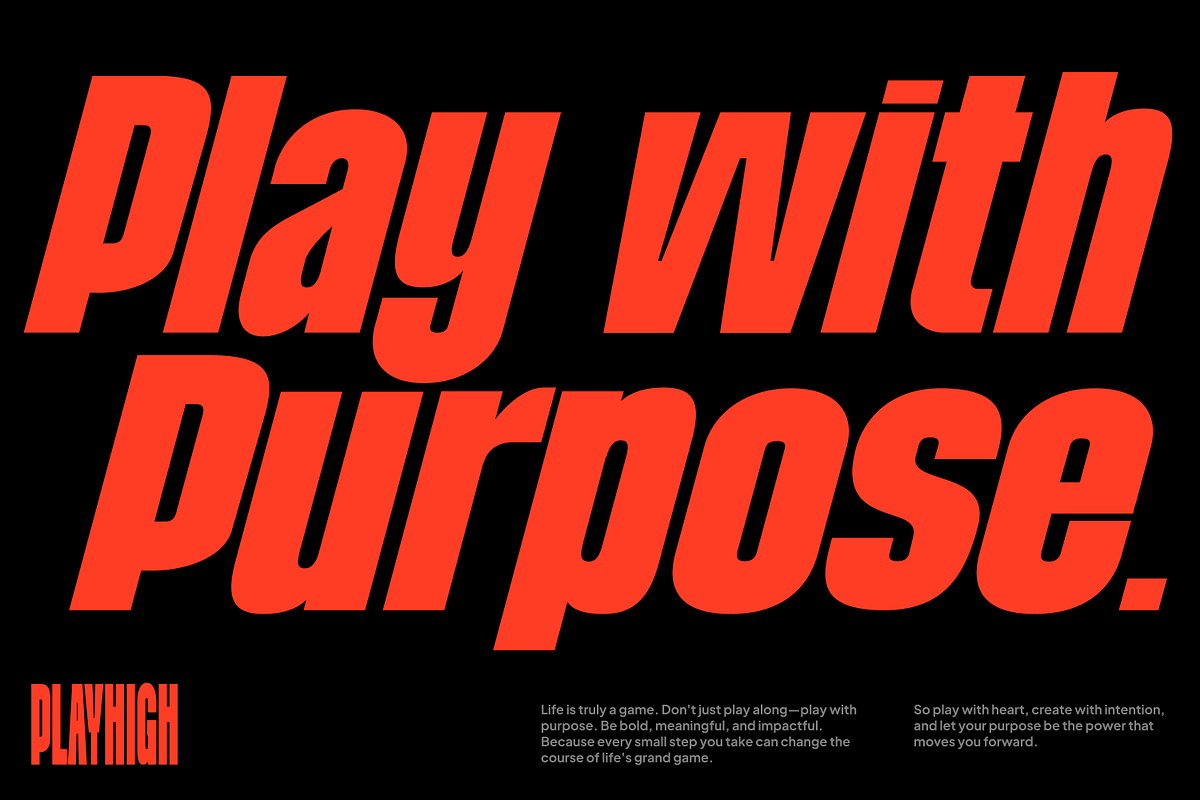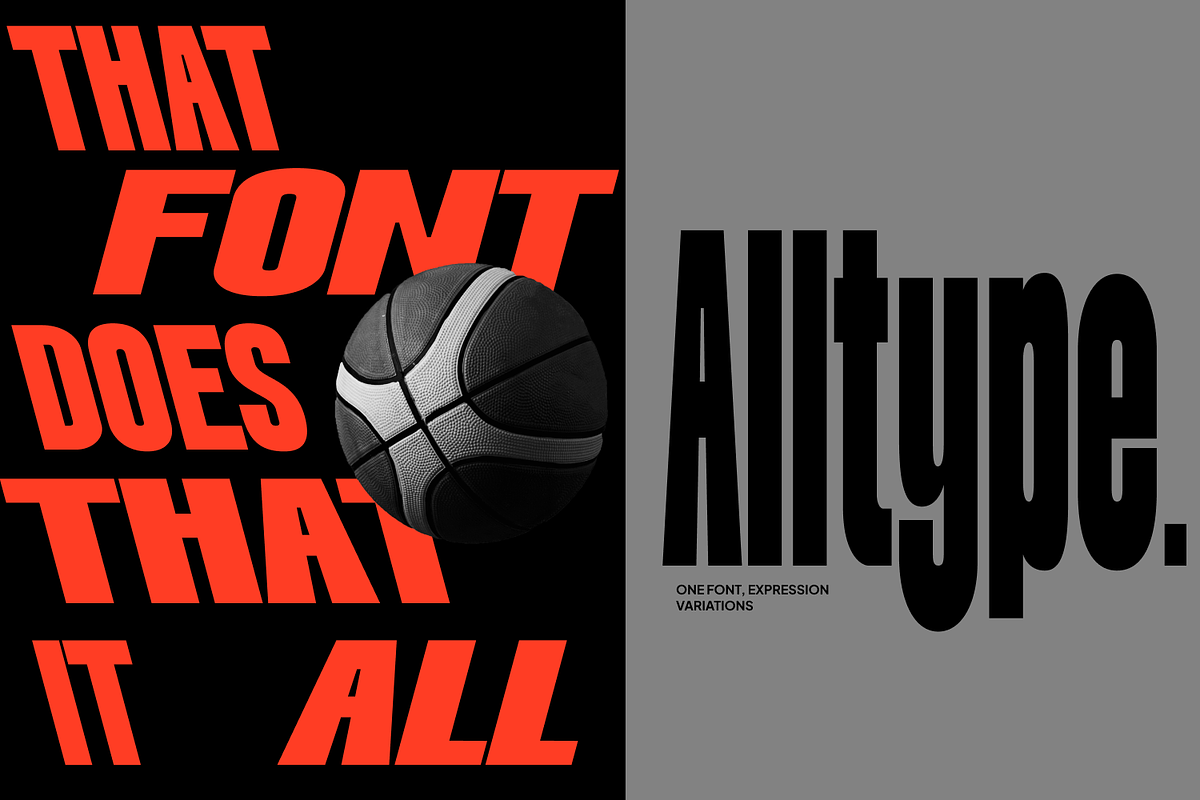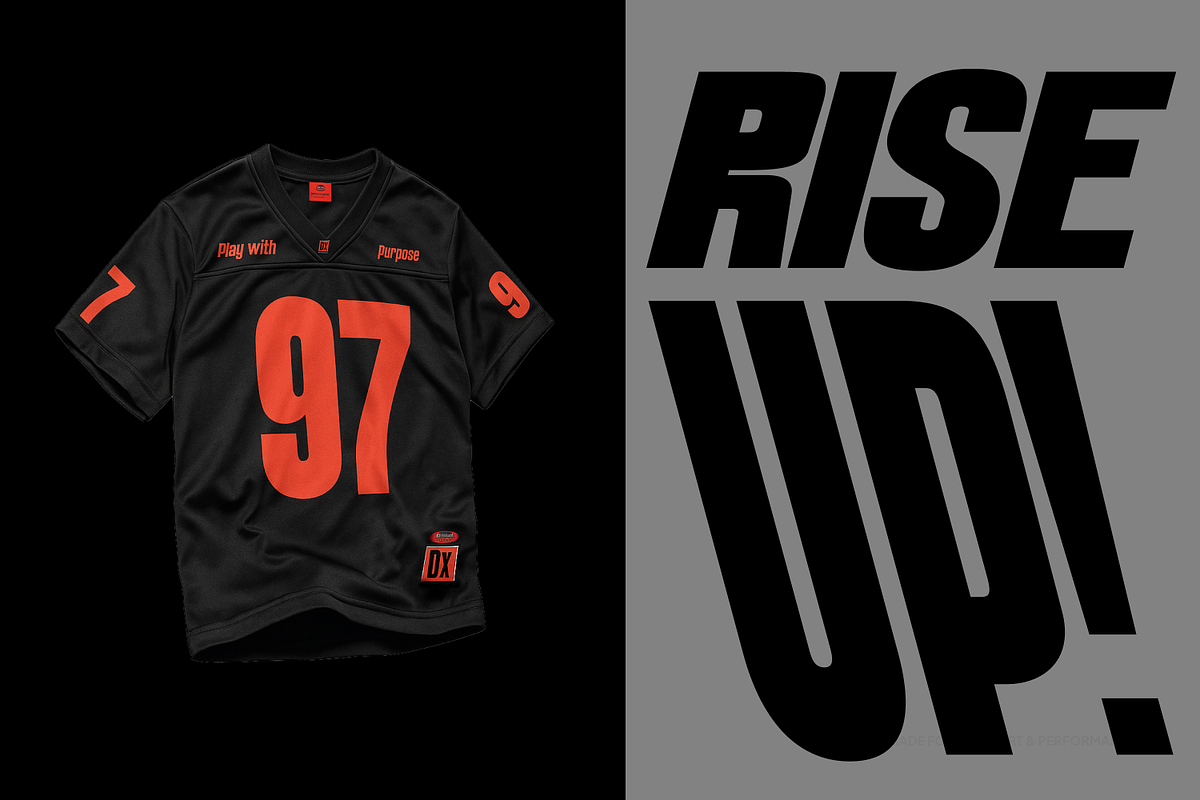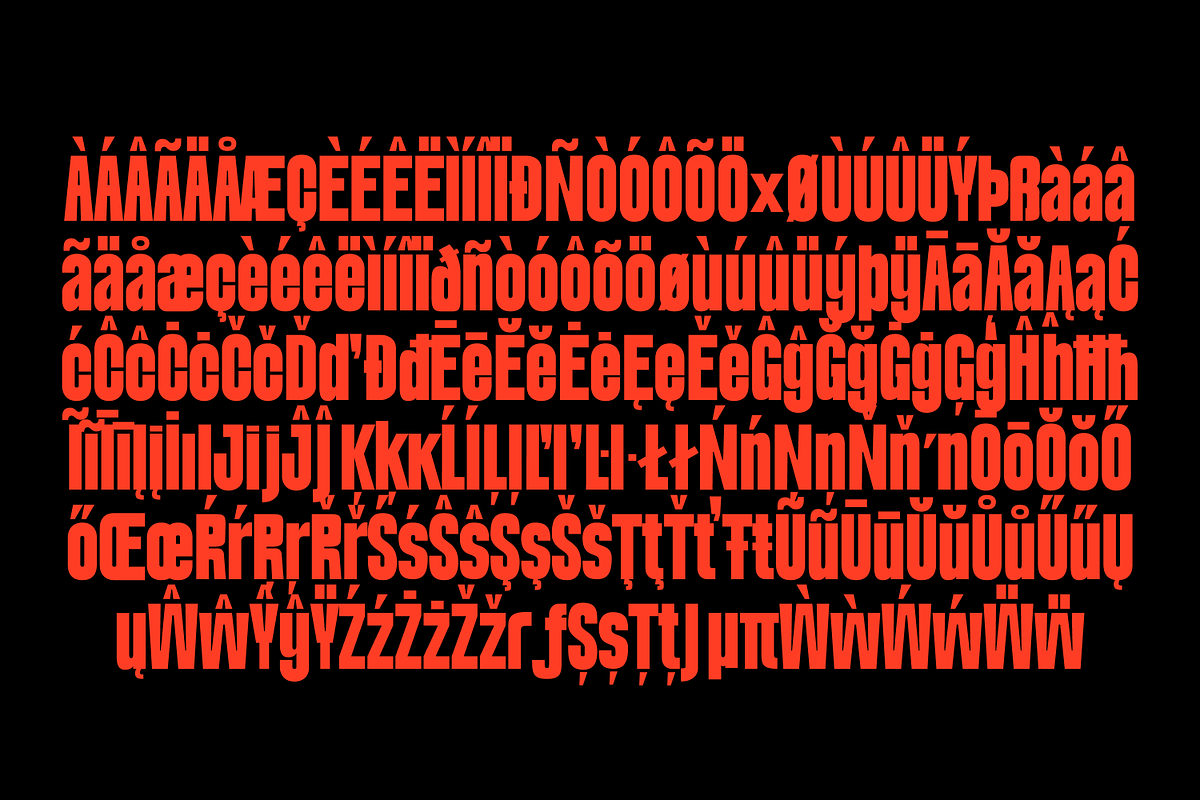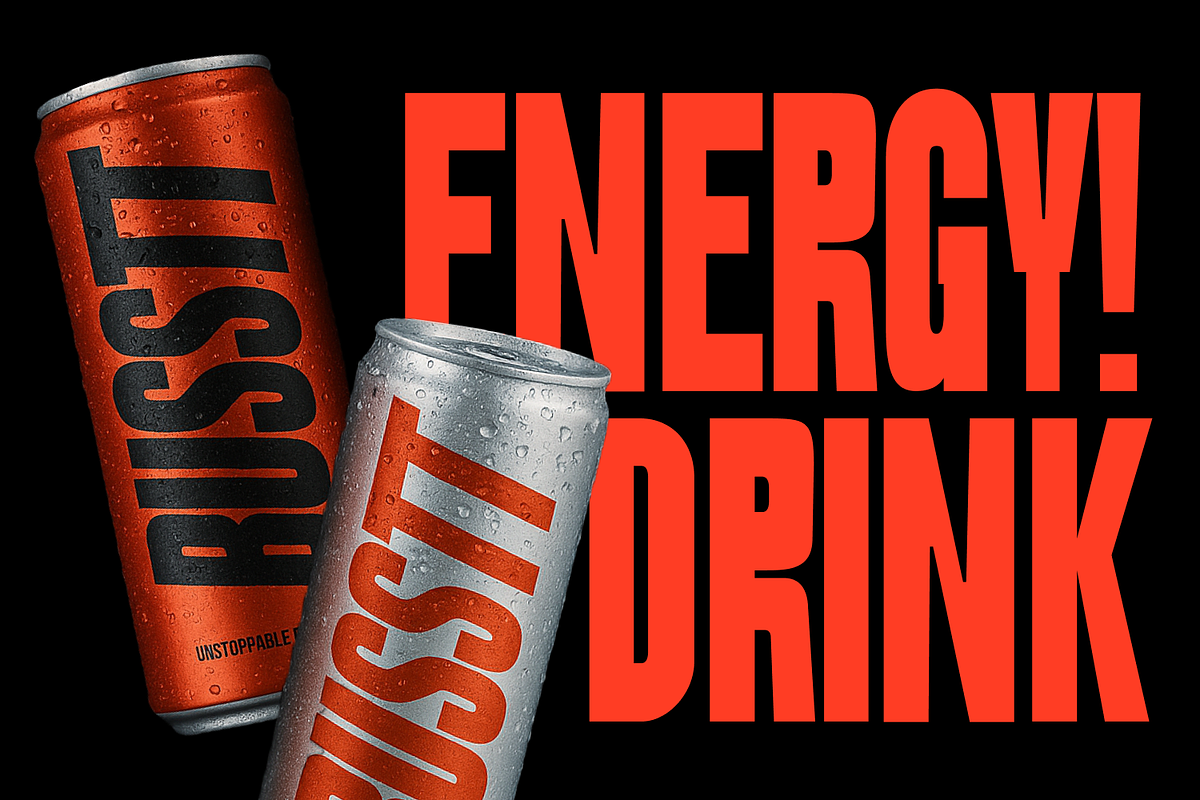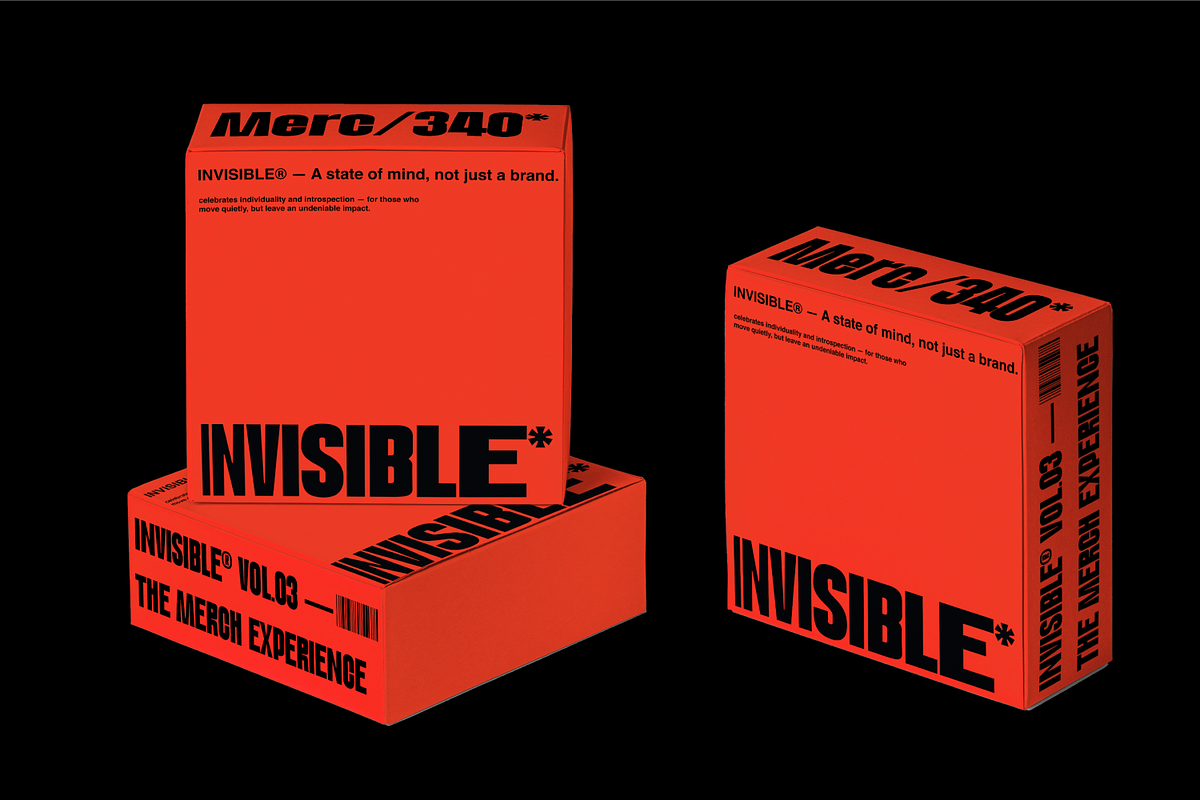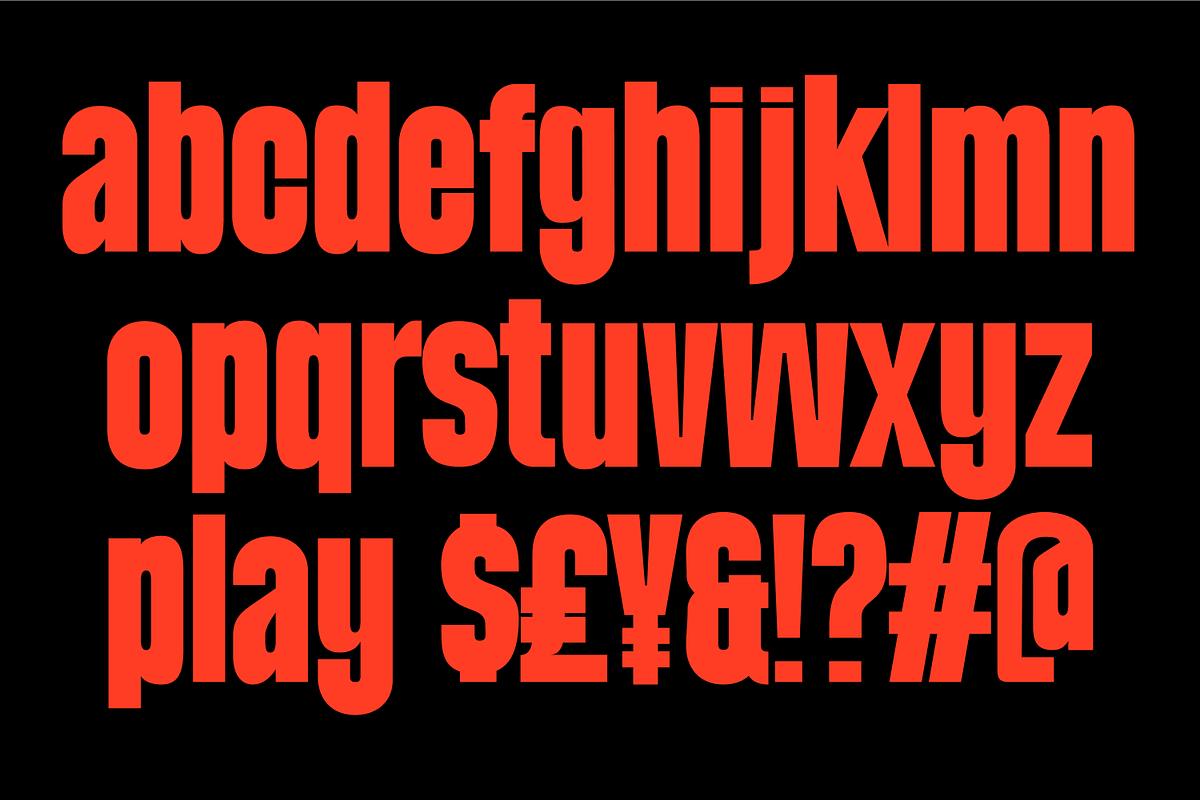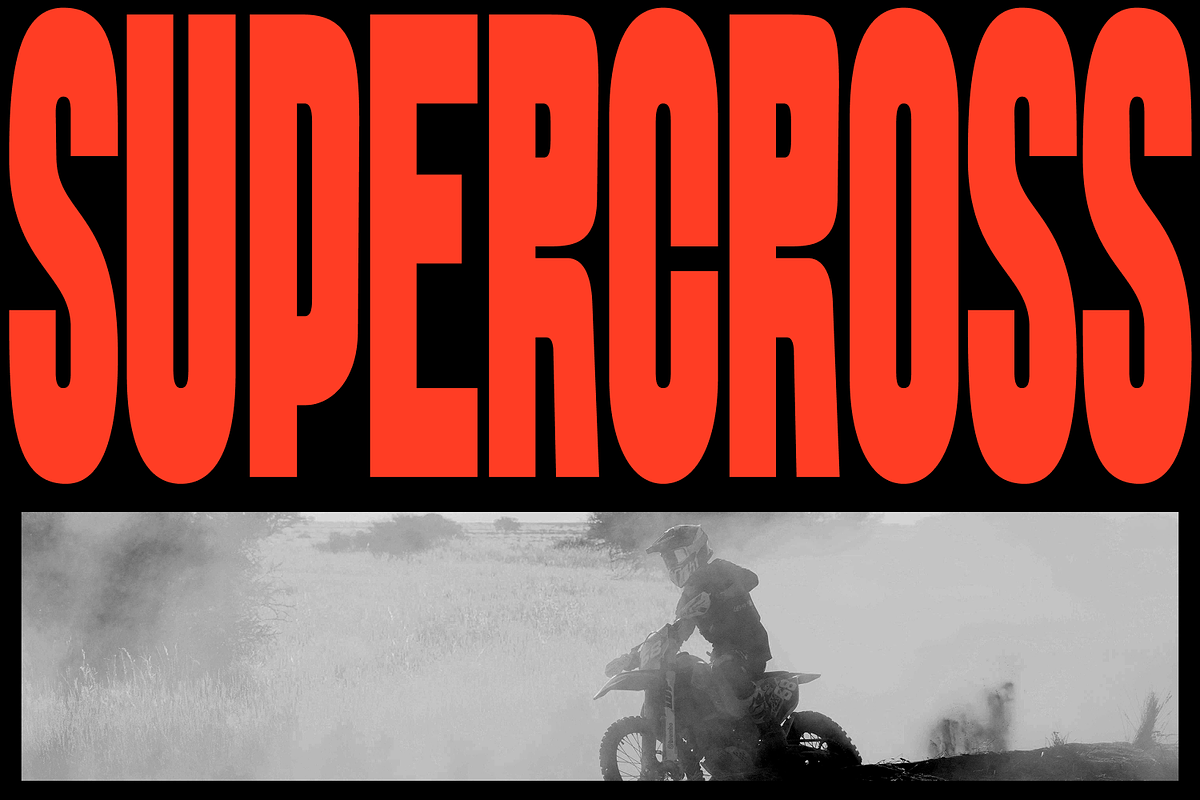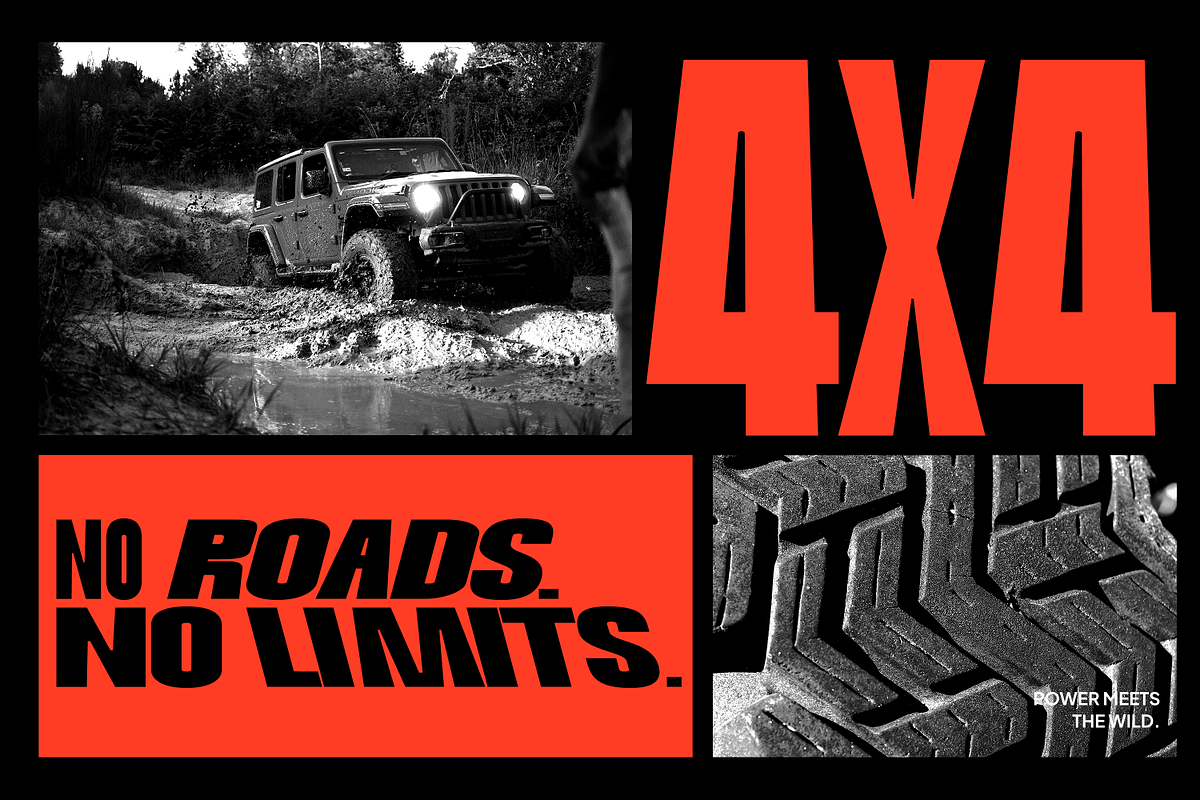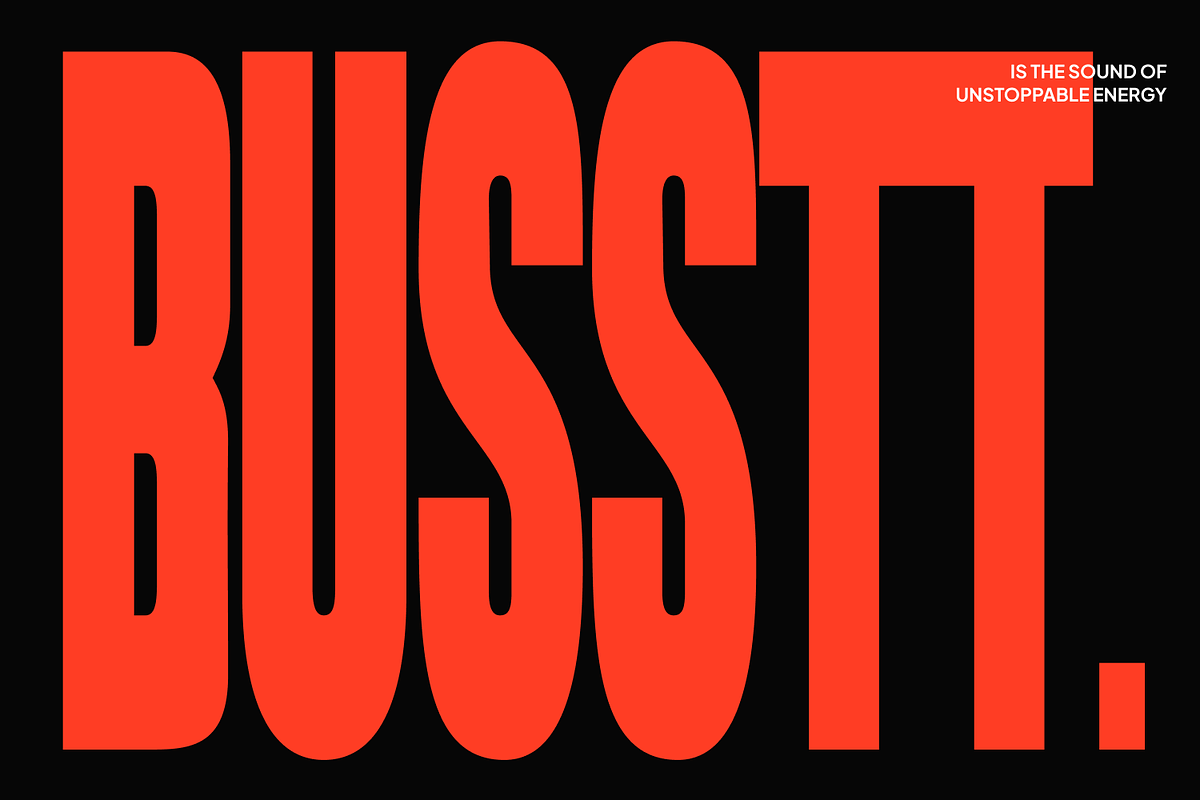
Dx Playhigh 21 Font + Variable
DX Playhigh – The Ultimate Variable Display Font DX Playhigh is a bold and dynamic variable sans-serif display font designed to make a statement. Crafted by Dirtyline Studio, this font blends strength, versatility, and energy — perfect for designers who want their typography to stand tall and command attention.
With 21 styles ranging from Condensed to Ultra Expanded, DX Playhigh gives you total creative freedom. Its Variable Font technology lets you seamlessly adjust the width and style to match your visual needs — whether you’re designing bold headlines, impactful posters, expressive logos, or energetic branding materials.
- Condensed to Ultra Expanded Widths
- Regular, Italic, and Back Italic Styles
- Bold and Modern Display Typeface
- Perfect for Posters, Headlines, Branding, and Editorial Design
Why Choose DX Playhigh isn’t just a font — it’s a design tool built to amplify your creative power. Its strong letterforms, sharp geometry, and smooth transitions between weights give your work a bold, futuristic look while staying readable and professional.
Bring a modern, confident, and energetic edge to your projects — DX Playhigh adapts effortlessly to any concept, from cutting-edge digital campaigns to experimental typographic layouts.